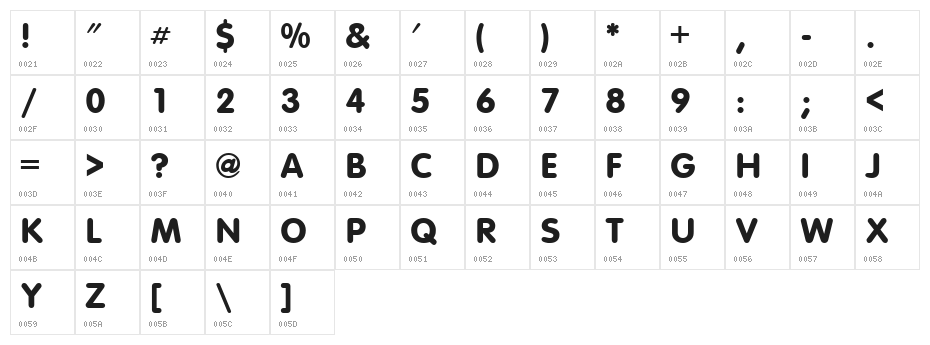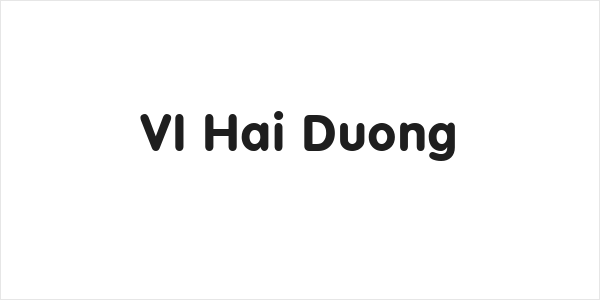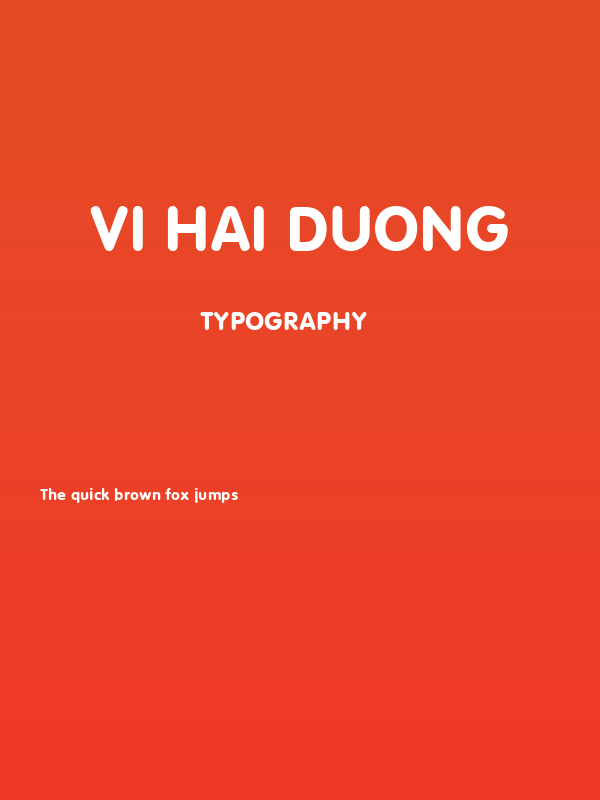
VI Hai Duong Font
VI Hai Duong Description
This font features a bold, rounded style with smooth curves and a friendly appearance. The characters are evenly weighted, providing a consistent and harmonious look across both uppercase and lowercase letters. The numerals and special characters maintain the same rounded aesthetic, ensuring uniformity throughout. Its simplicity and clarity make it highly legible, suitable for various design applications. The font's playful yet professional style can enhance both digital and print media, making it versatile for numerous uses.
| Proposed Projects | Ideal for branding, children's books, posters, and digital content where a friendly and approachable style is desired. |